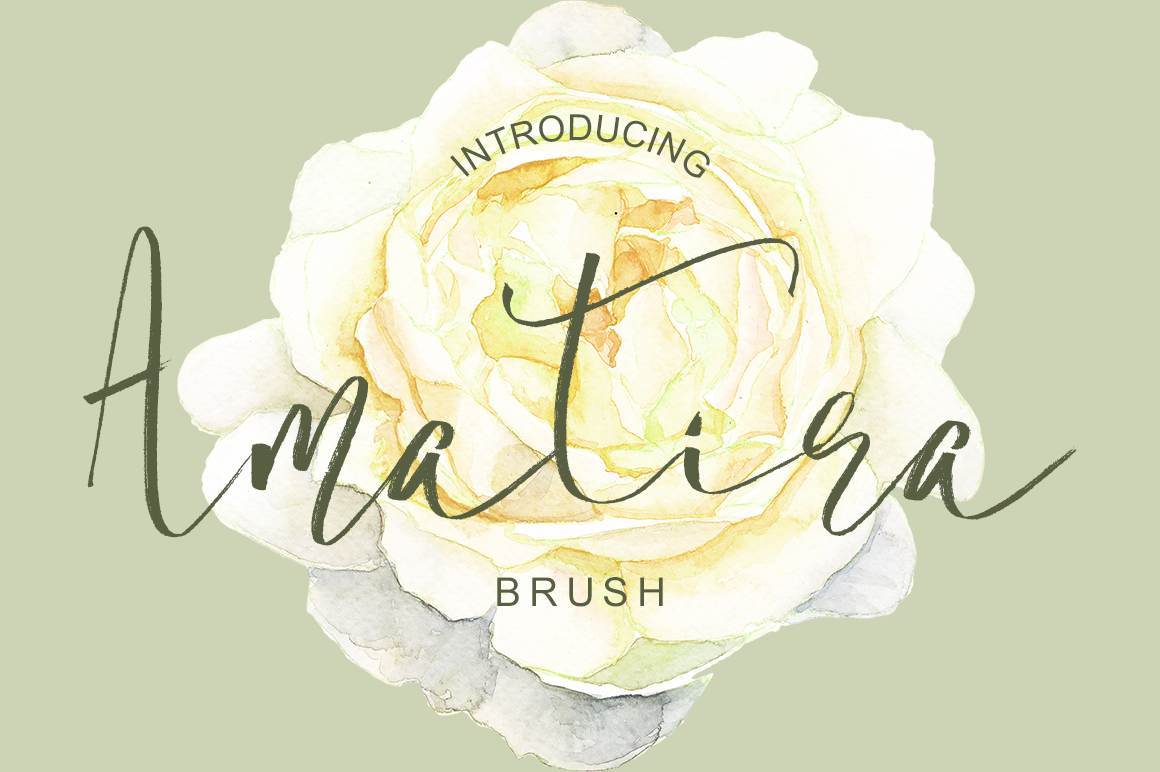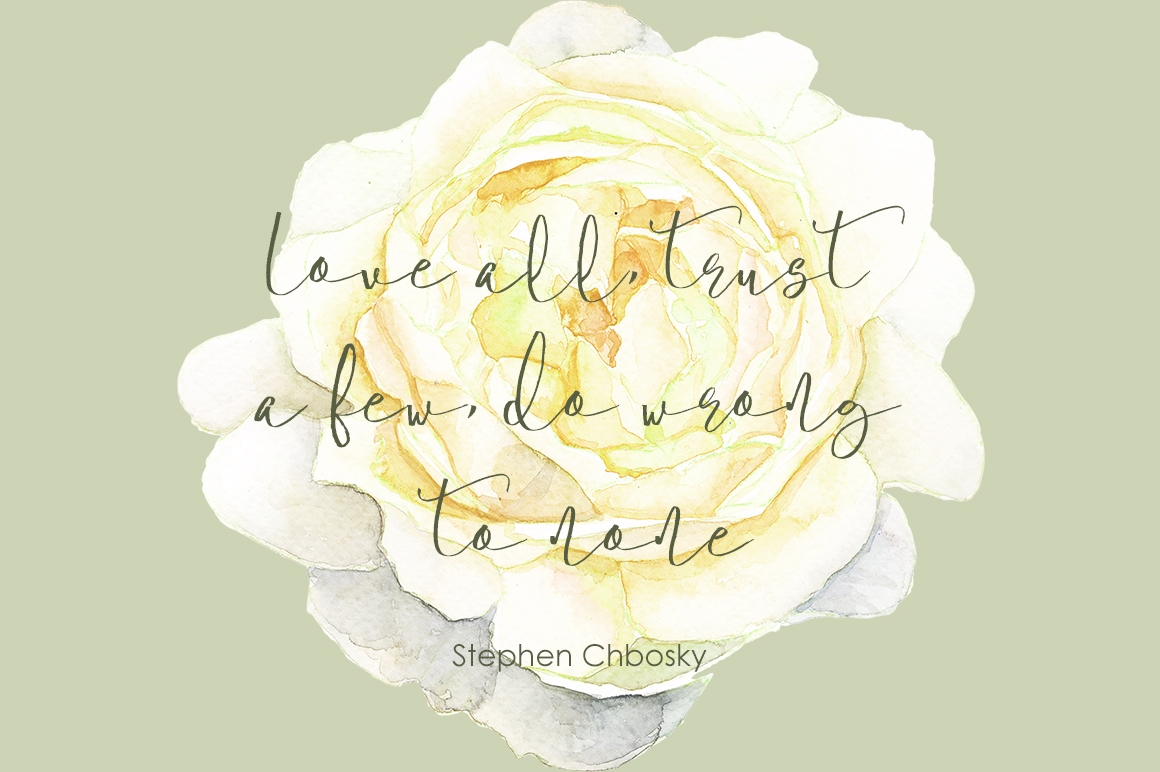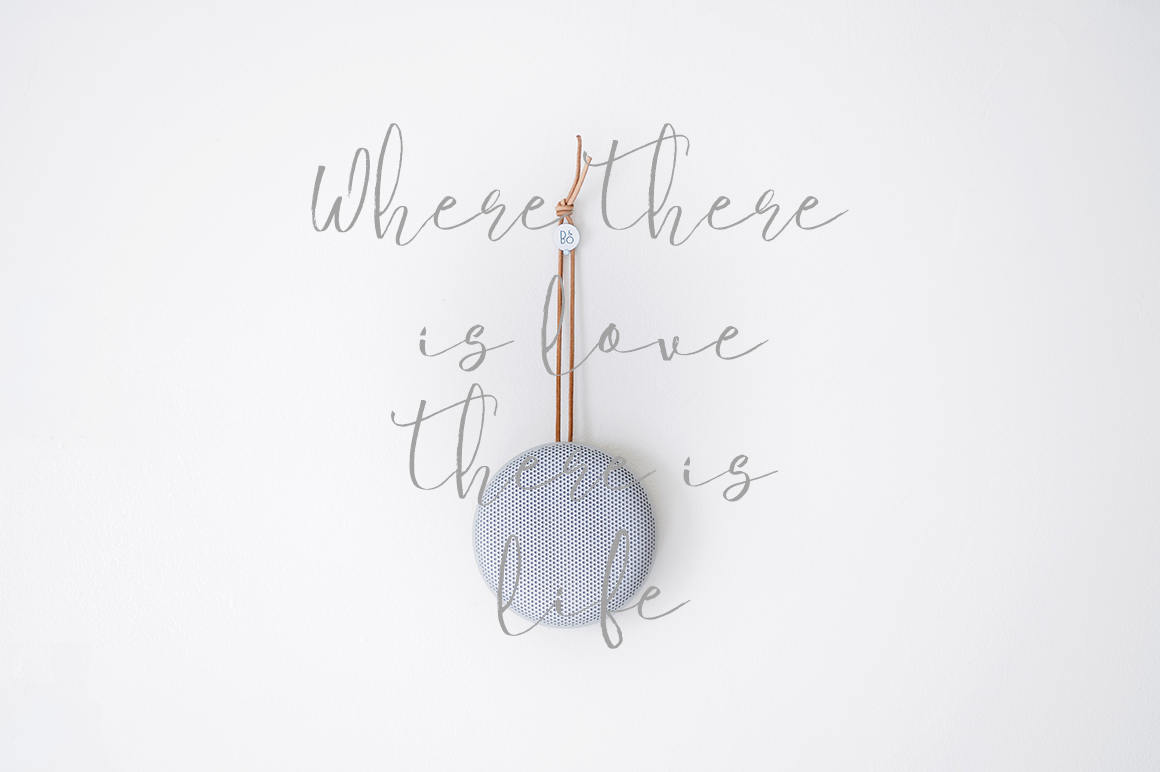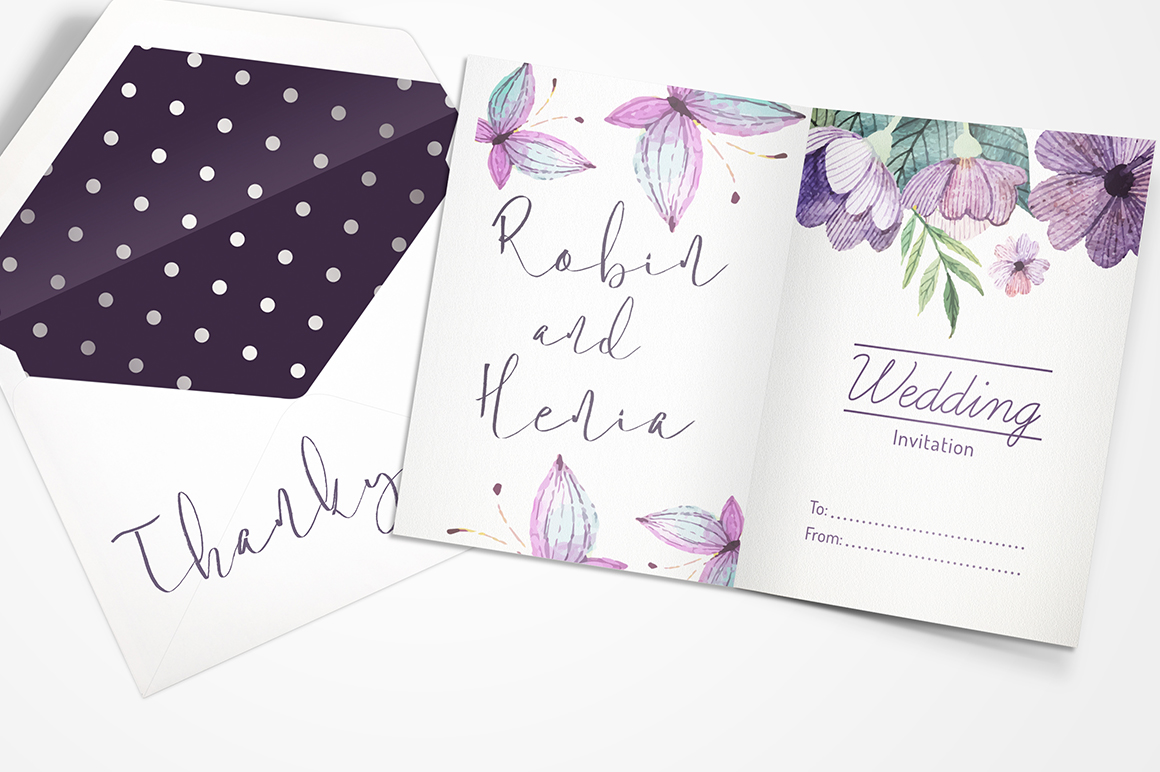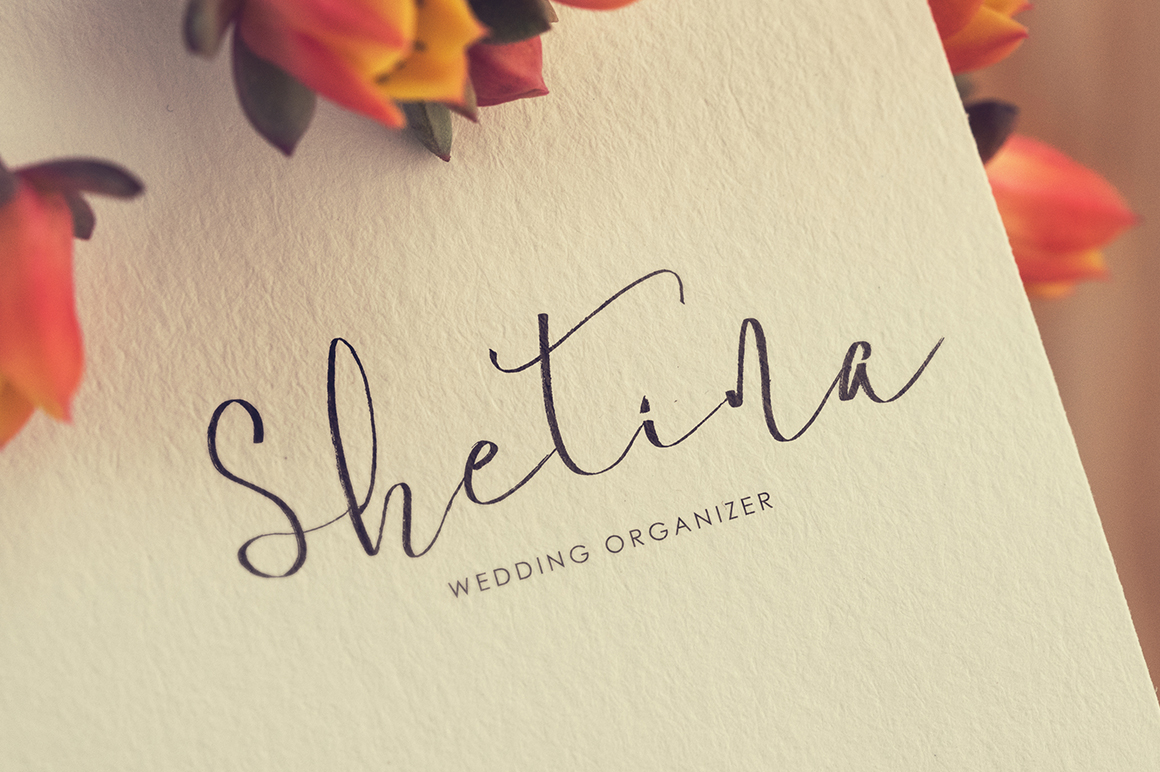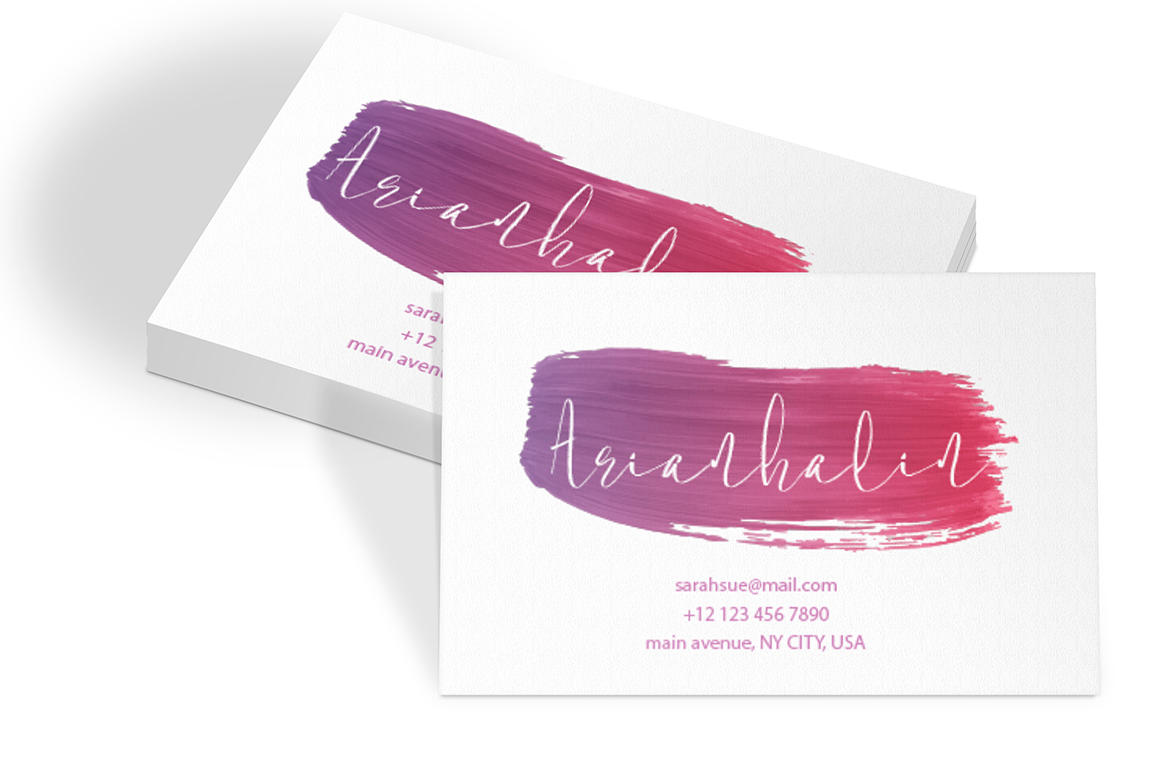
HomeScript FontsAmatira Font Script Fonts Amatira Font FacebookXPinterestWhatsApp Amatira Font Poster 2 Amatira Font Poster 3 Amatira Font Poster 4 Amatira Font Poster 5 Amatira Font Poster 6 About Amatira Font Amatira is a brush script with a modern style. DOWNLOAD NOW People also explored Stupiec Morning Cullen Font Lust Script Broyther Font Delicious Toast Font Silly Donkey Font Hipstravaganza Font Little Font Rosario Font 277 0 TagsAmatira Font Previous articleBeettrot FontNext articleHello Gabhila Font LEAVE A REPLY Cancel reply Comment: Please enter your comment! Name:* Please enter your name here Email:* You have entered an incorrect email address! Please enter your email address here Website: Save my name, email, and website in this browser for the next time I comment. Personal Use Free Anggraini Personal Use Free Read more about this font Angista Script Personal Use Free Read more about this font Concre Personal Use Free Read more about this font Cintya Personal Use Free Read more about this font BLOG To increase your work productivity, choose the most readable fonts. In today's fast-paced work environment, where digital communication and information consumption are integral to our daily routines, the choice of fonts can significantly impact... Fonts That Capture the Spirit of New York City Using Fonts in Digital Marketing: Tips to Strengthen Your Brand Identity Top 7 Google Fonts Alternatives for Faster and Privacy-Friendly Web Design (2025)